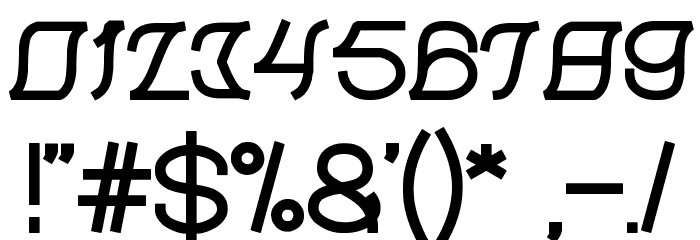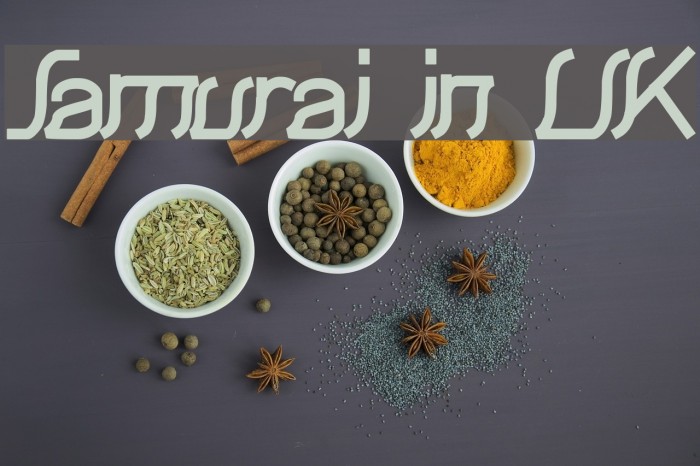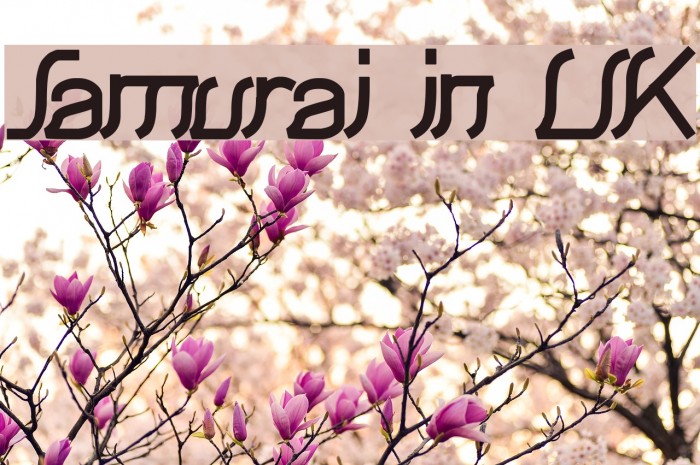
Samurai in UK Font
This font features a unique and modern design with a futuristic flair. The characters are constructed with sharp, angular lines and a consistent stroke width, giving it a sleek and edgy appearance. The uppercase and lowercase letters maintain a consistent style, with distinctive geometric shapes that create a sense of movement and dynamism. The numbers and special characters follow the same design principles, ensuring a cohesive look across all elements. This font stands out with its bold presence and is perfect for making a statement.
A modern, angular font with a futuristic and dynamic style.
- Proposed Projects: Ideal for sci-fi themed projects, technology branding, video game titles, and modern advertising campaigns.